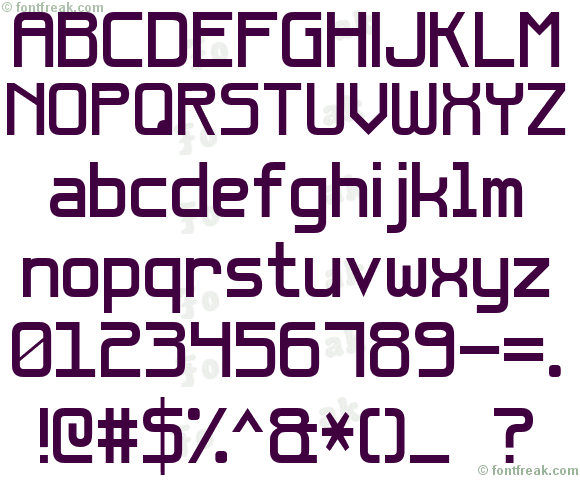
Effective Way 7
Effective Way 7 by Style-7 is a striking display font that falls within the sans-serif category. This font features a modern and bold aesthetic, characterized by its clean lines and geometric shapes, which give it a strong visual presence. The stroke weight is uniform, providing a balanced appearance, while the spacing between letters is thoughtfully designed to enhance readability. The overall look is contemporary, making it suitable for a variety of design contexts.
This font excels in scenarios where impact and clarity are paramount. It is particularly well-suited for branding materials, such as logos and promotional posters, where a strong, memorable impression is desired. Additionally, Effective Way 7 is ideal for headlines in magazines and websites, ensuring that key messages stand out. The font can also be effectively utilized in restaurant menus, where a modern touch can elevate the dining experience. Content creators will find this font appealing for social media graphics, as it captures attention and conveys information succinctly.
Target audiences for Effective Way 7 include graphic designers looking to enhance their projects with a distinctive typeface, small business owners aiming to establish a professional brand identity, and content creators seeking to engage their audience with eye-catching visuals. Its versatility makes it a valuable asset for anyone in need of a bold yet approachable font.